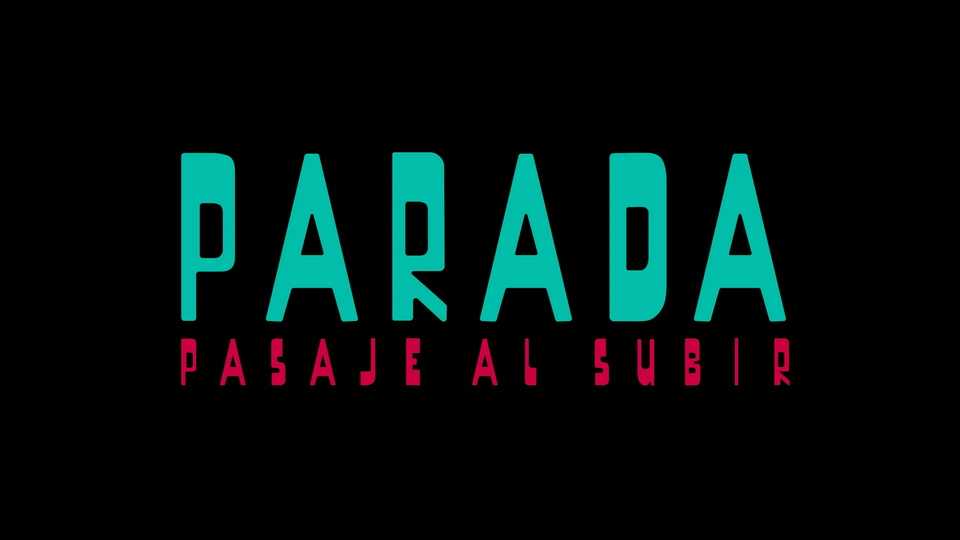
Download Parada font, a reverse-contrast display typeface inspired by the signs of Latin America public transportation. With its retro vibe Parada font is perfect for branding, movie titles, headlines, signage, posters and any display use.